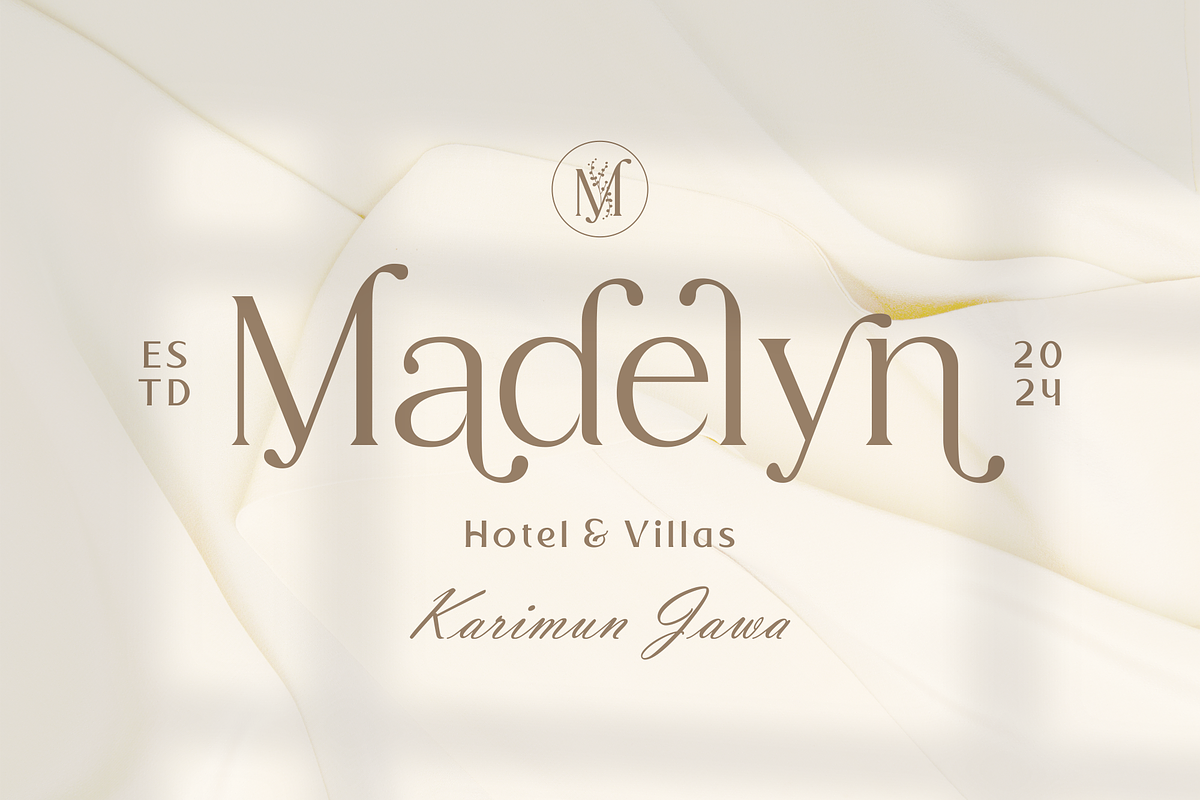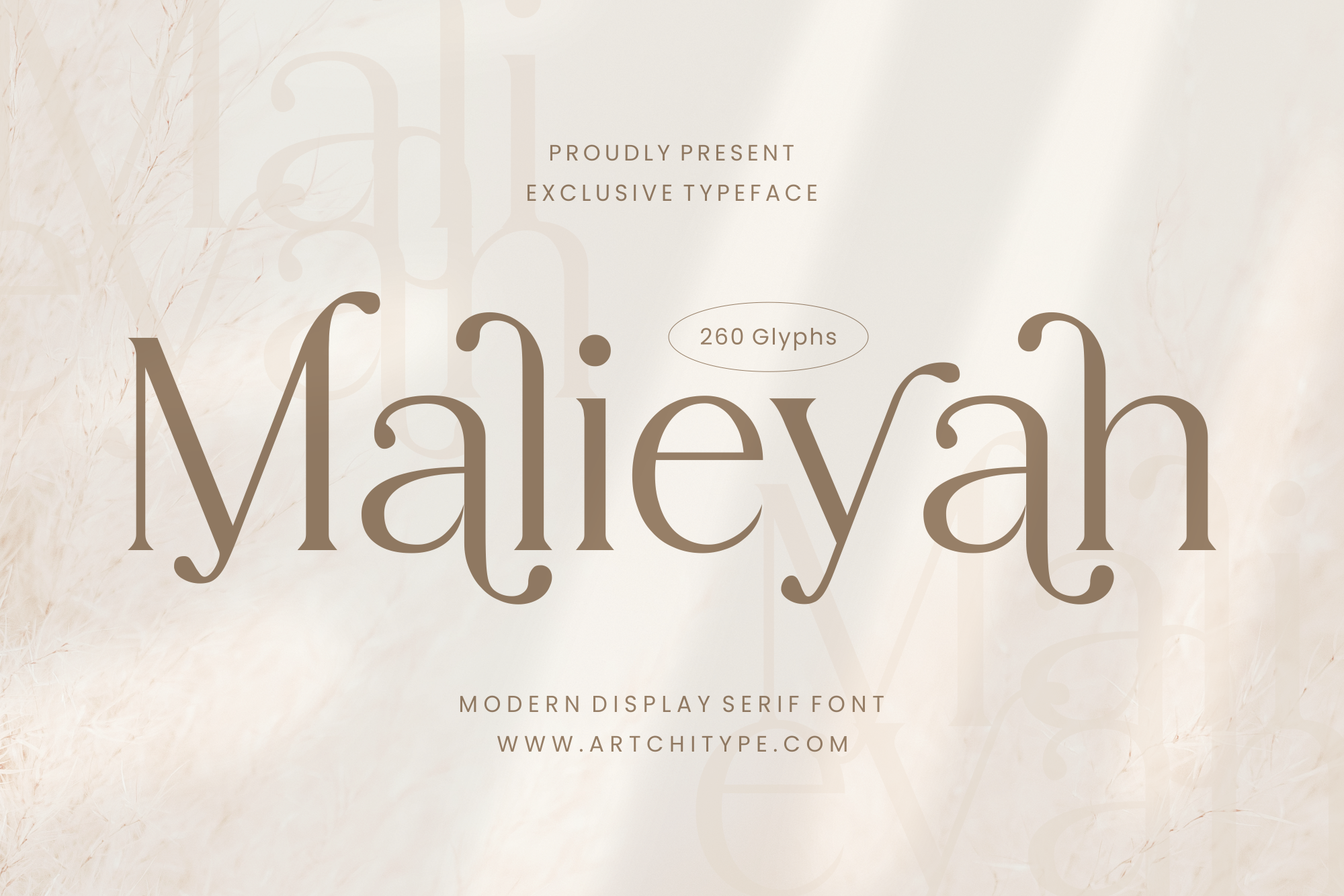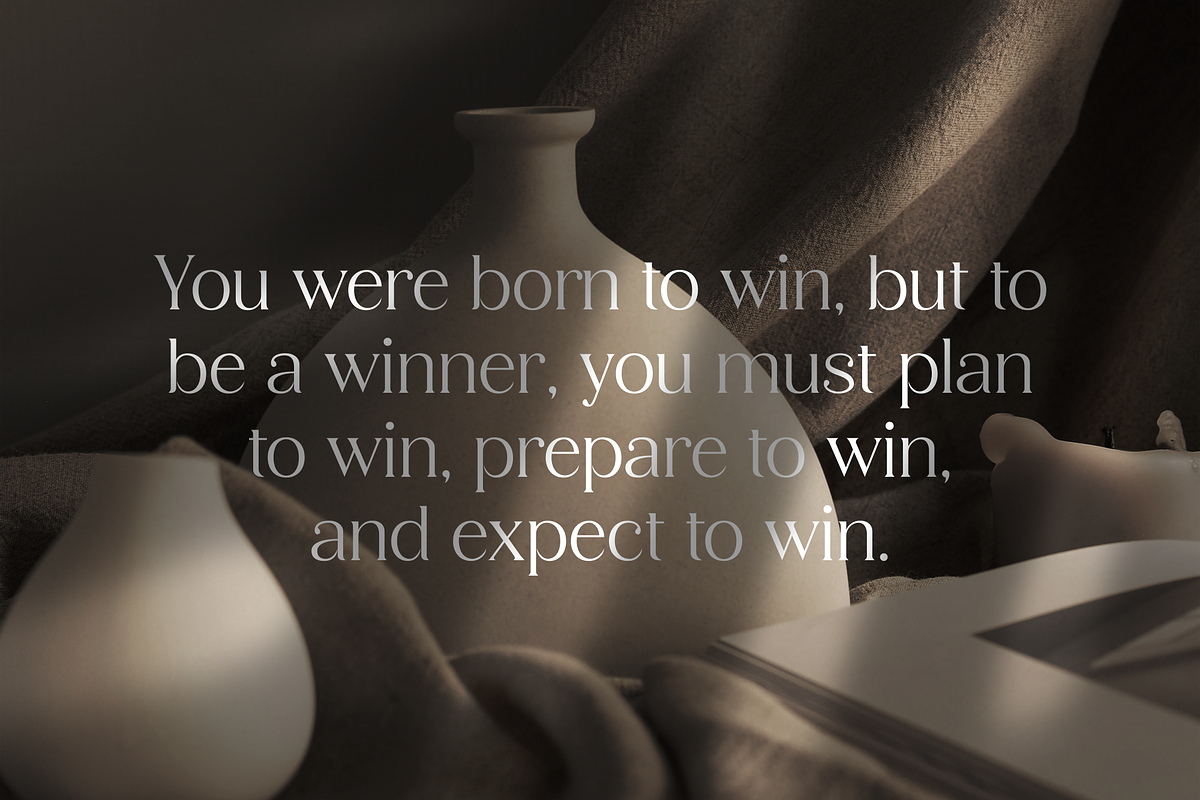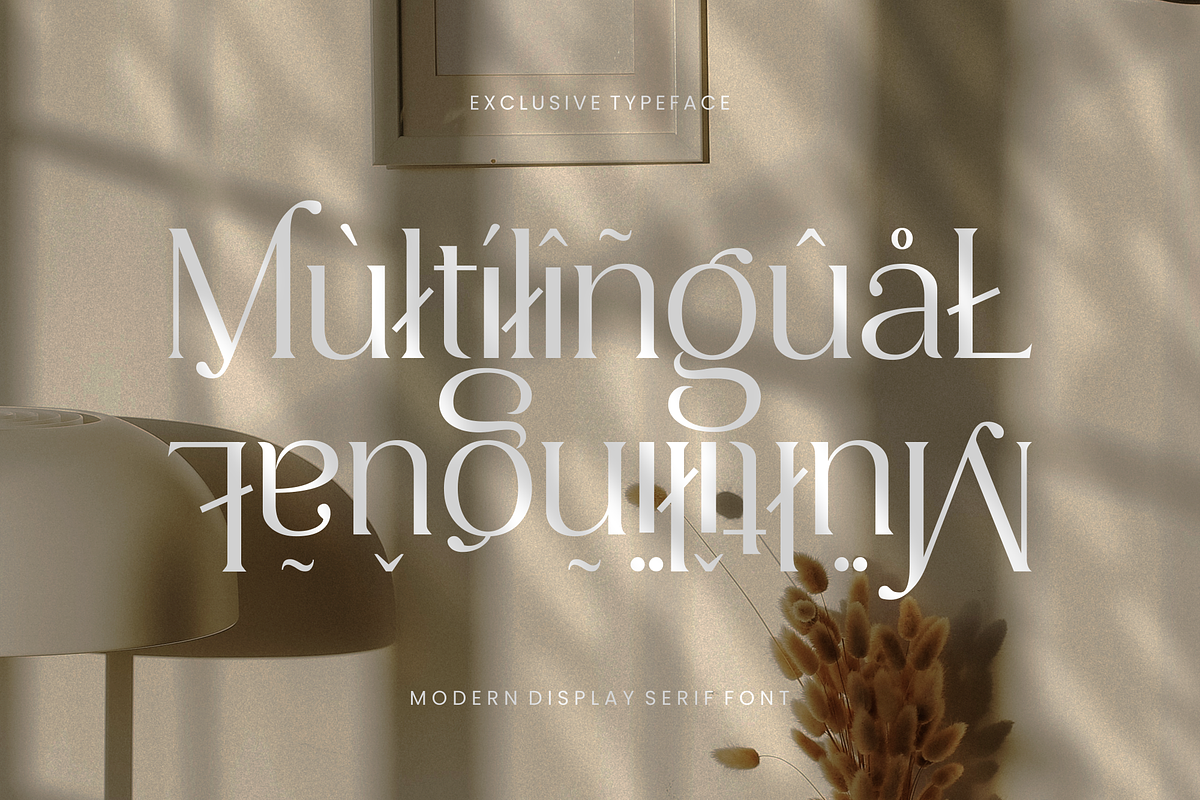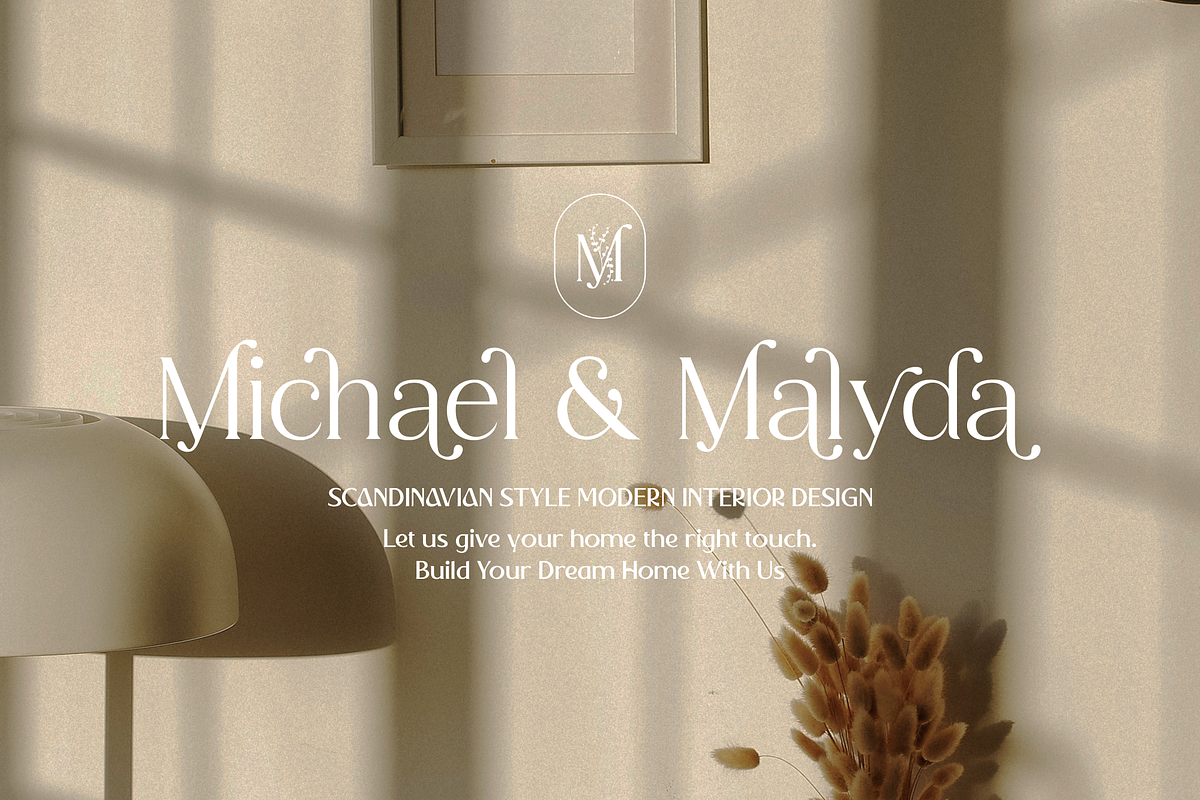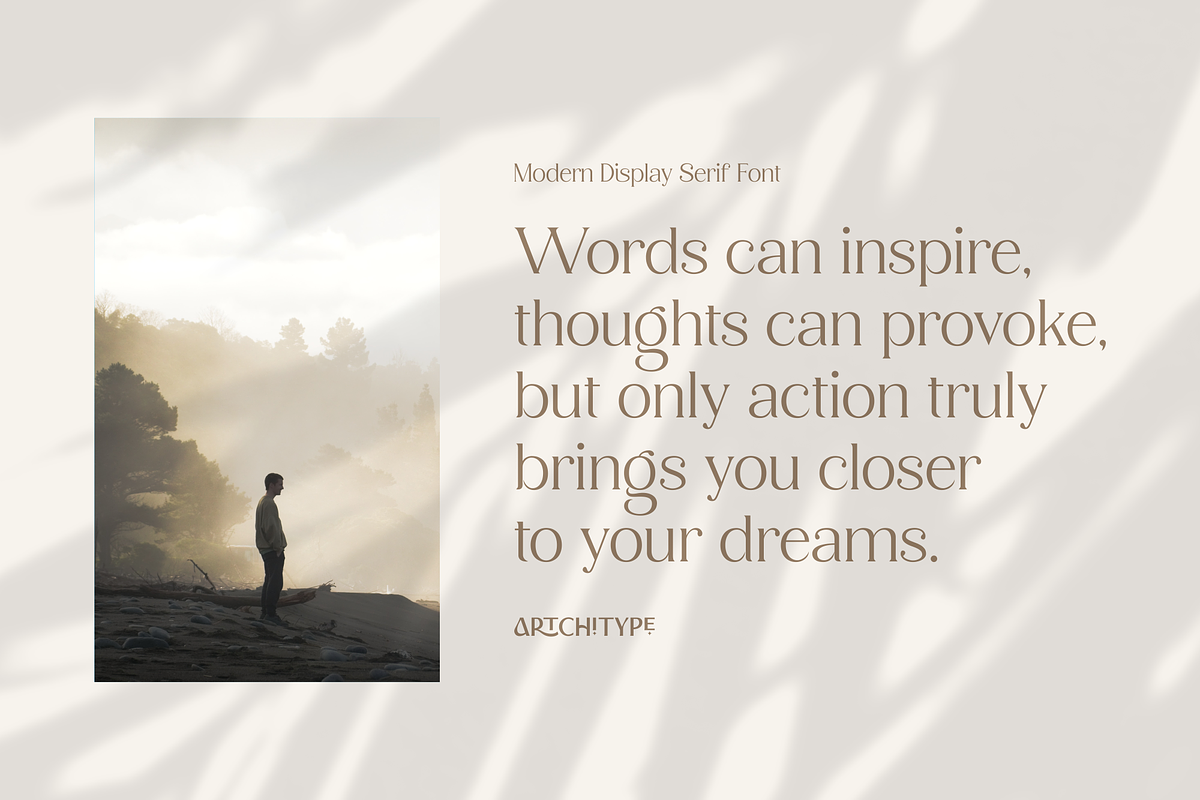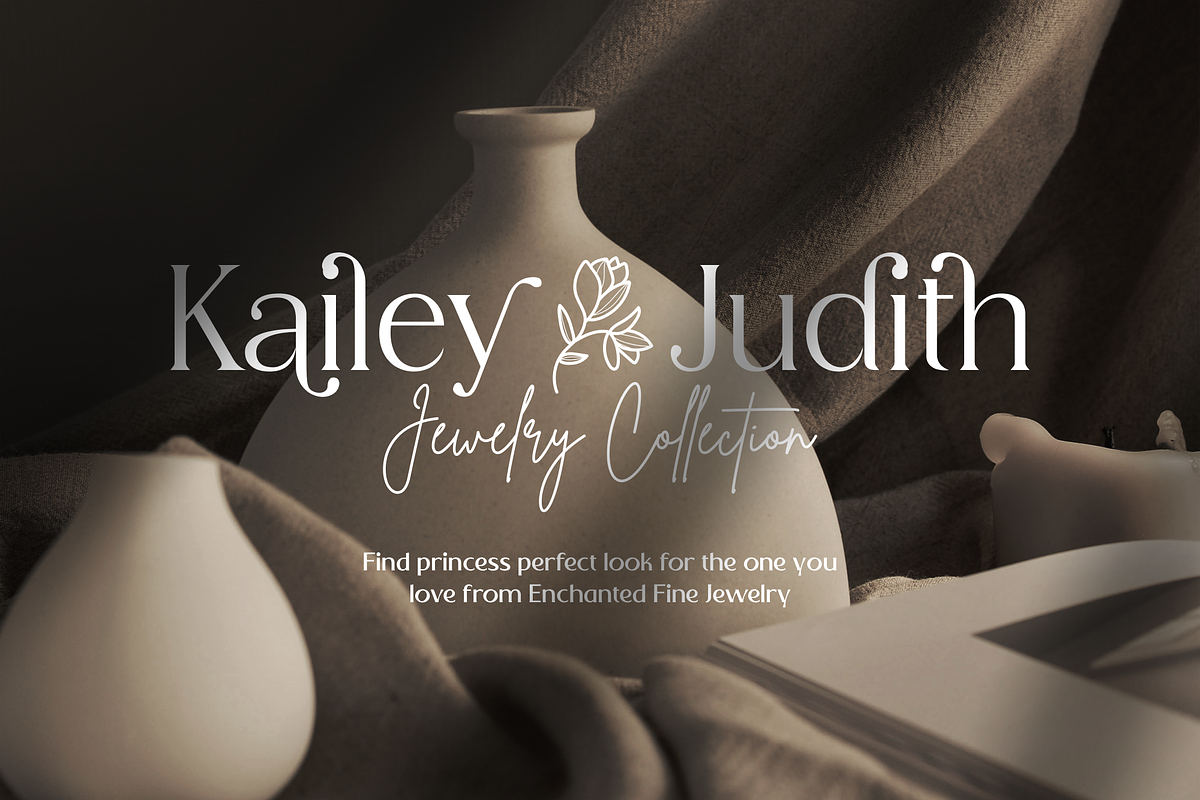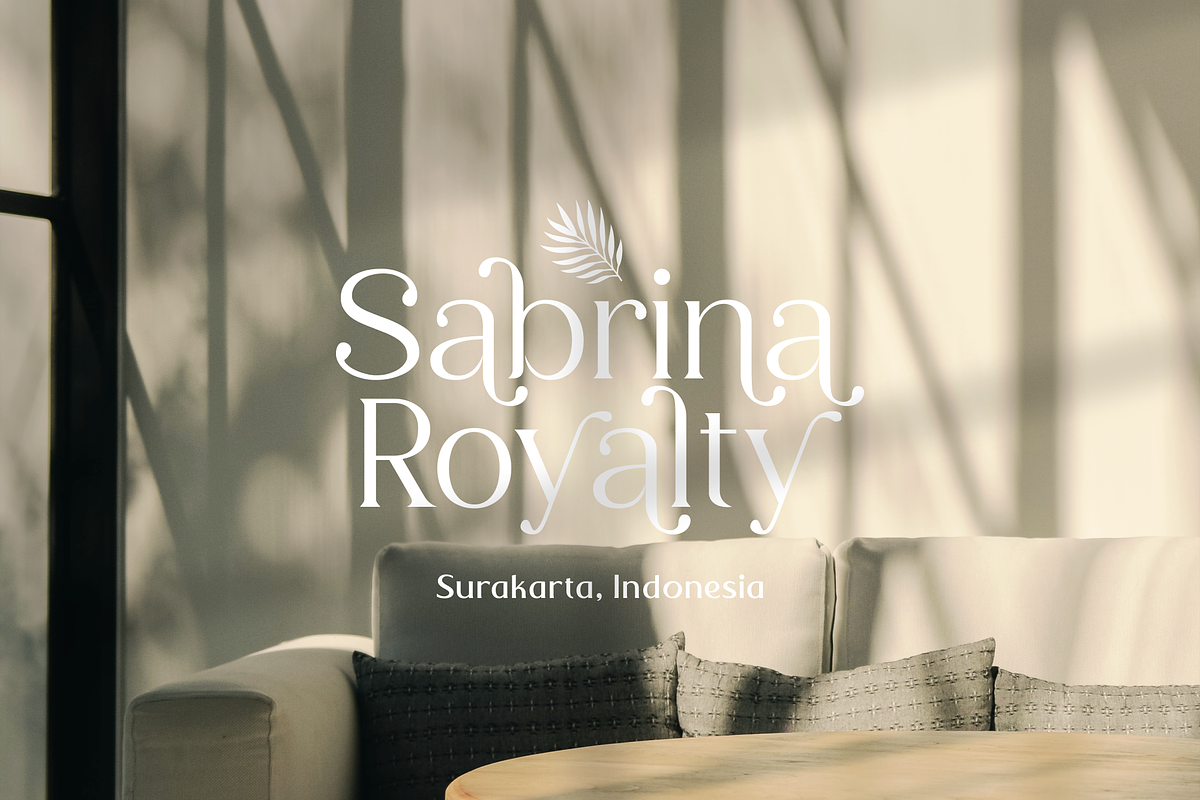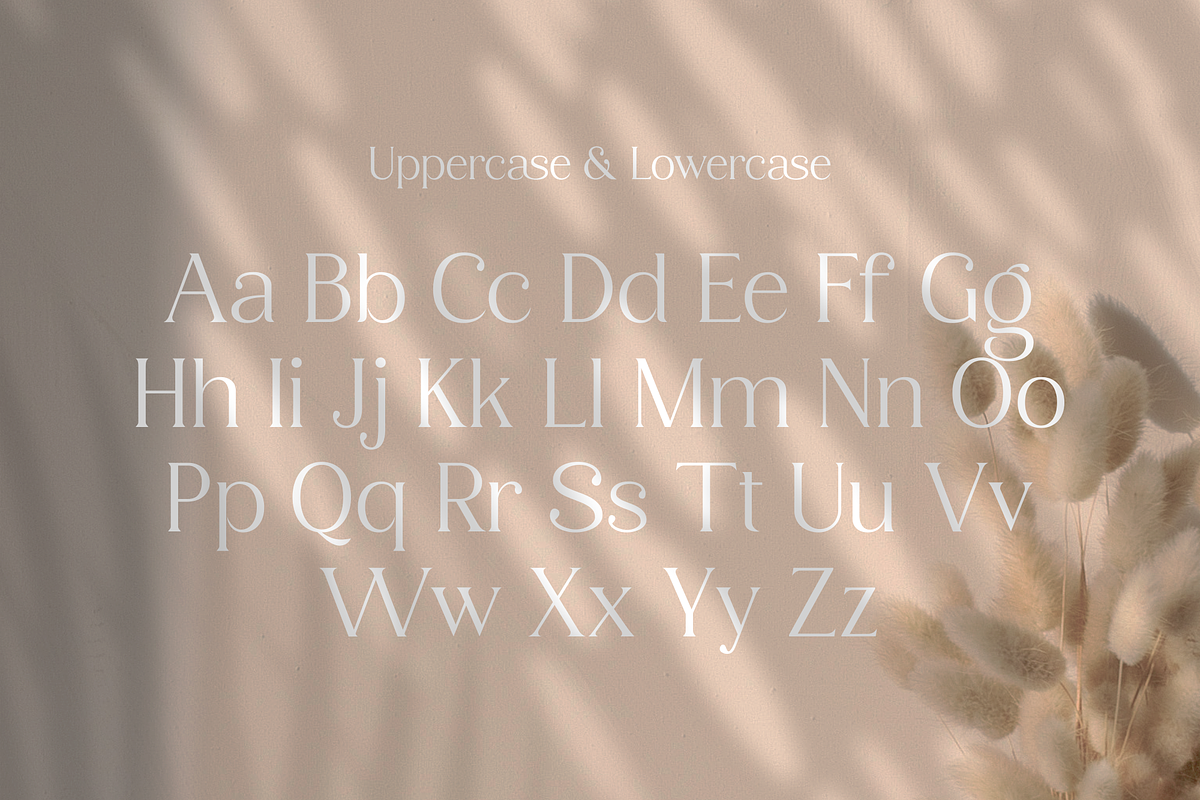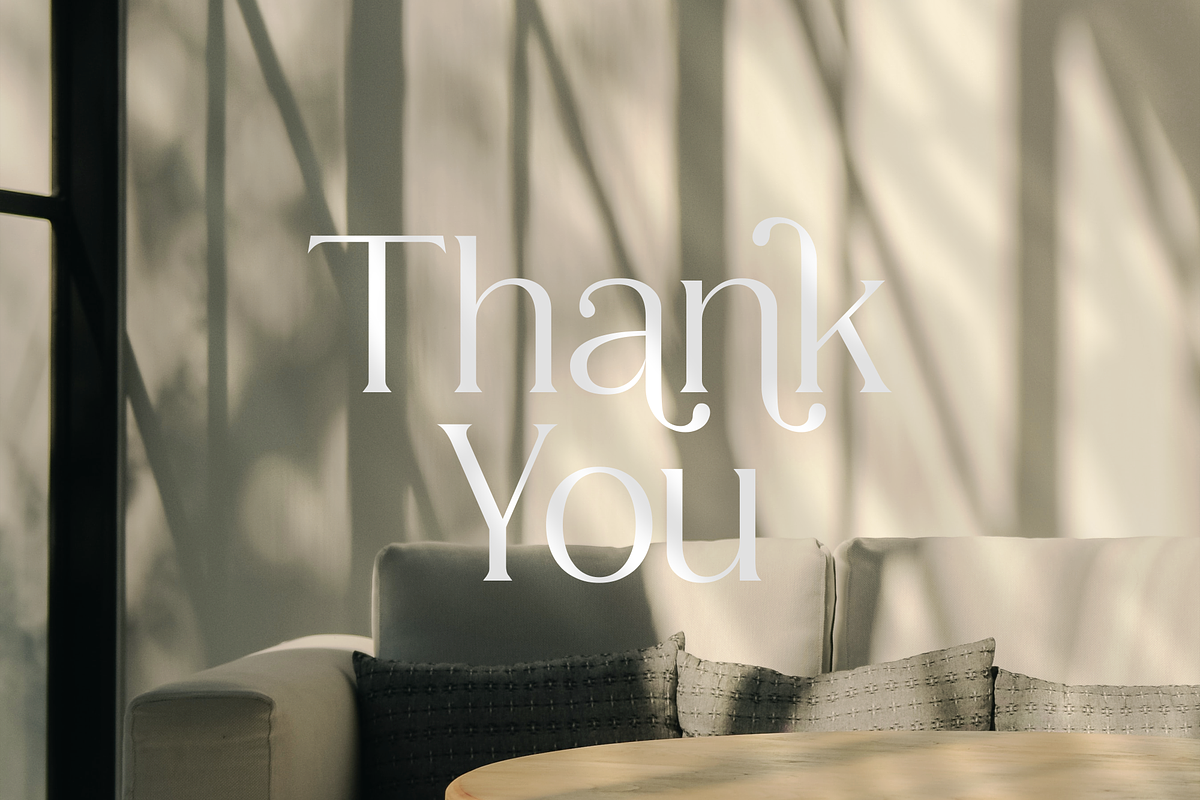
Malieyah - Display Serif Font
Malieyah is classy display serif font with 260+ characters. Includes uppercase, lowercase characters, multilingual, alternates and most common other characters.
Malieyah is perfect for logos, social media posts, product packaging, product designs, and other projects.